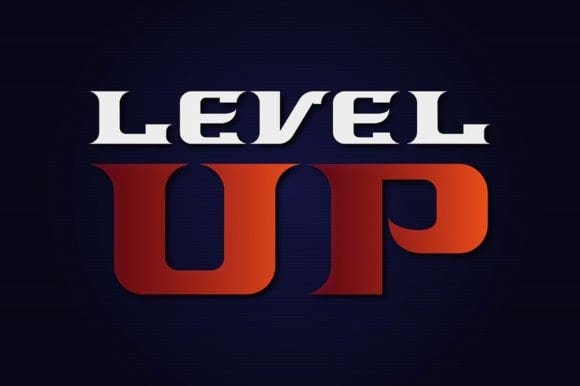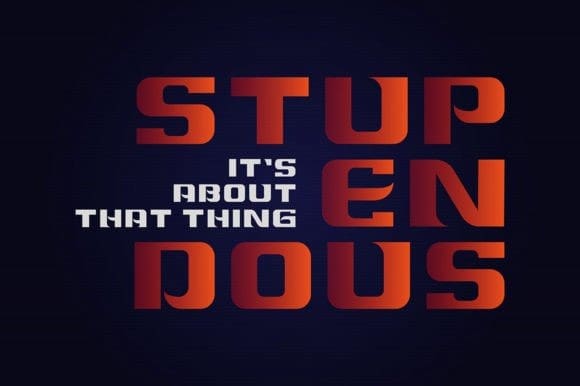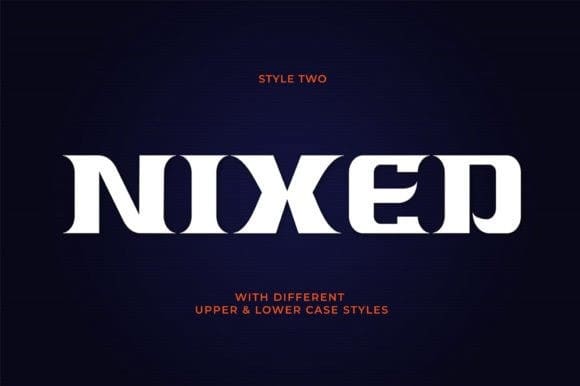
Nixed Font
Nixed Font is a cool and daring display font. Add it to your posters, headlines, banners, or anything that requires strong and modern typography.